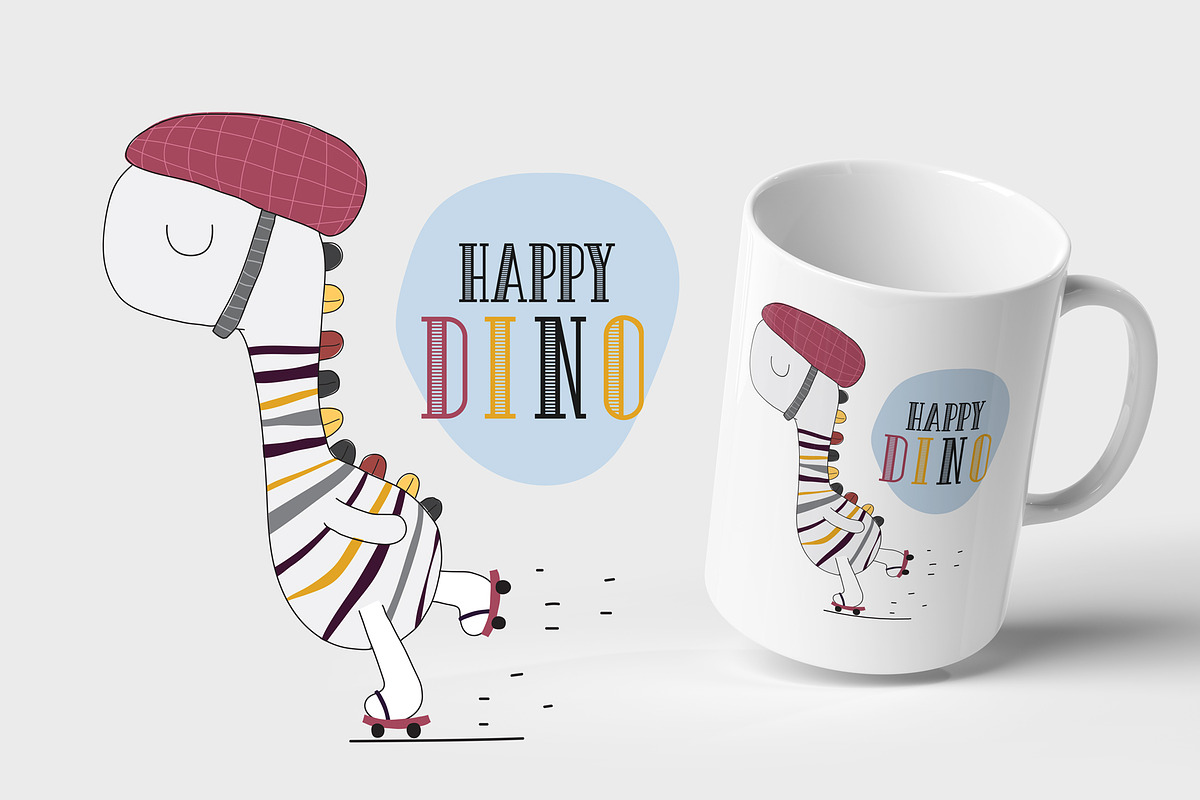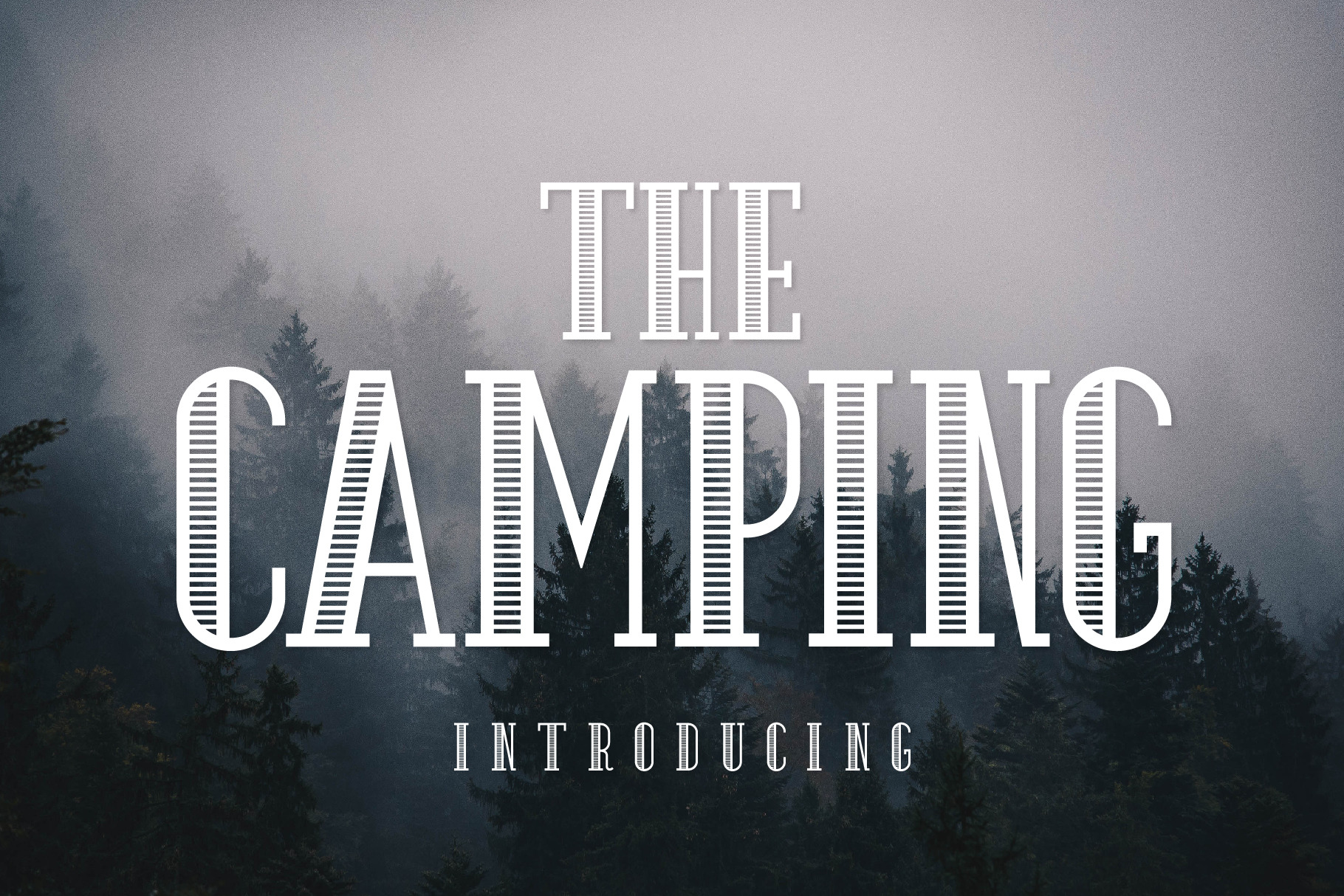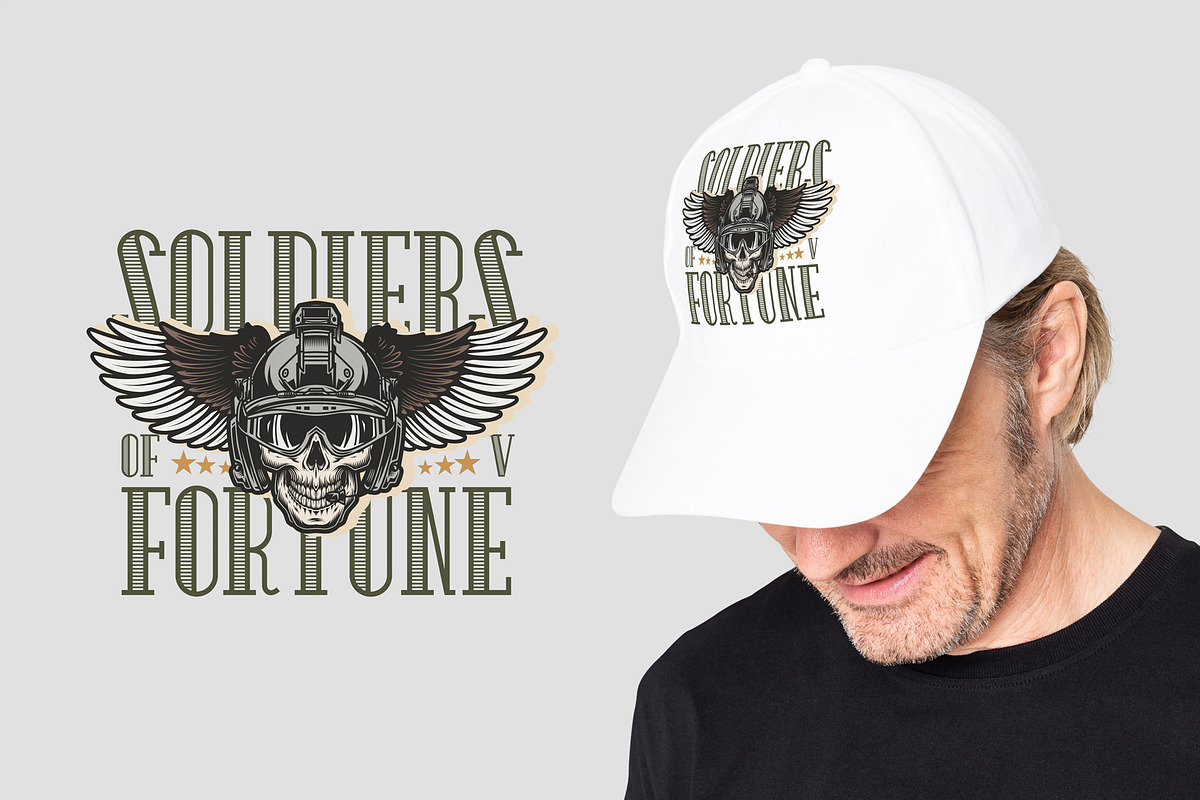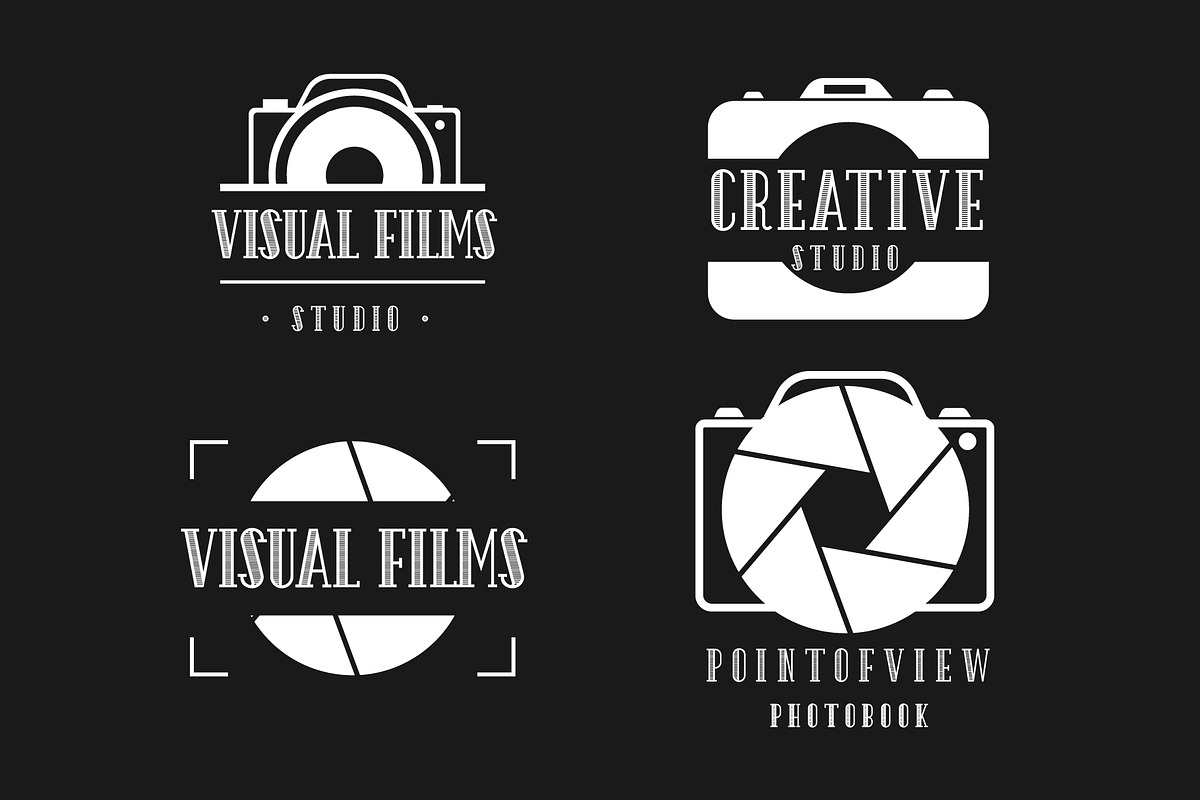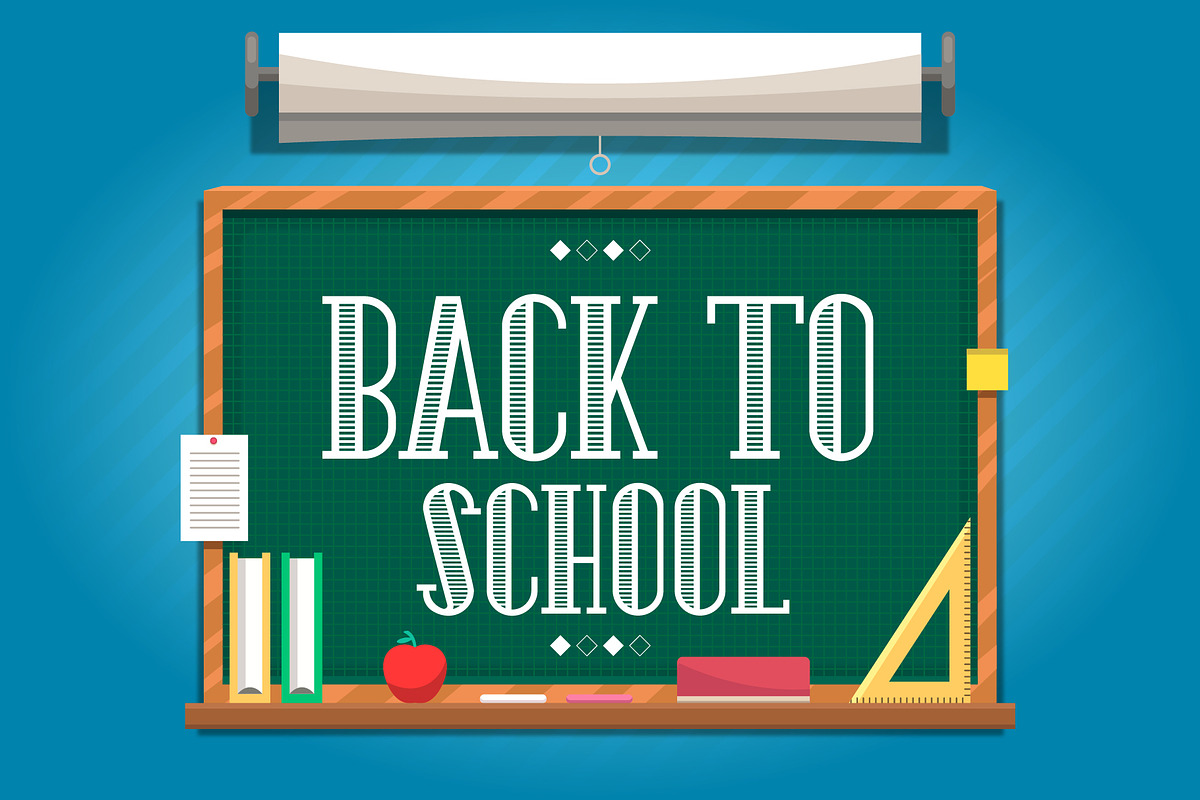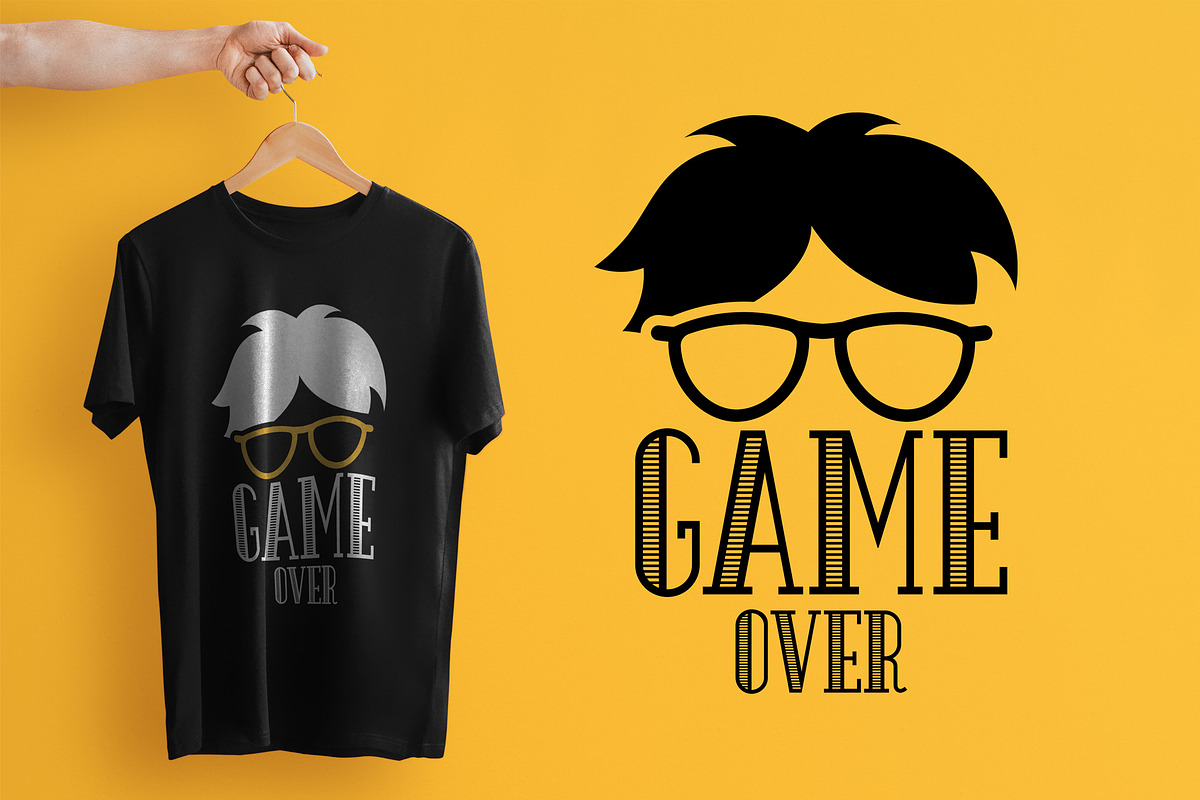
The Camping Fonts
The Camping is an elegant and stylish vintage slab serif font. This typeface is perfect for elegant and vintage logos, book or movie title designs, fashion brands, magazines, clothes, lettering, quotes, etc. Add this font to your favorite creative ideas and notice how it makes them come alive!